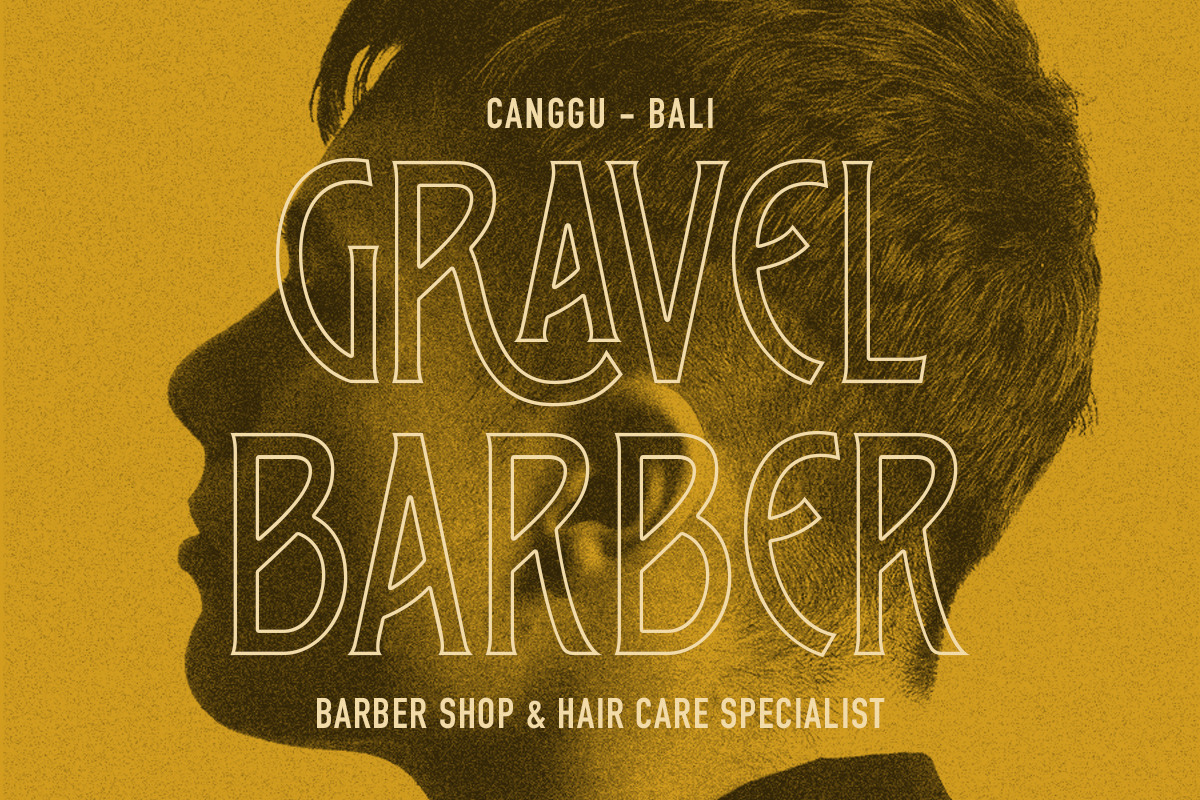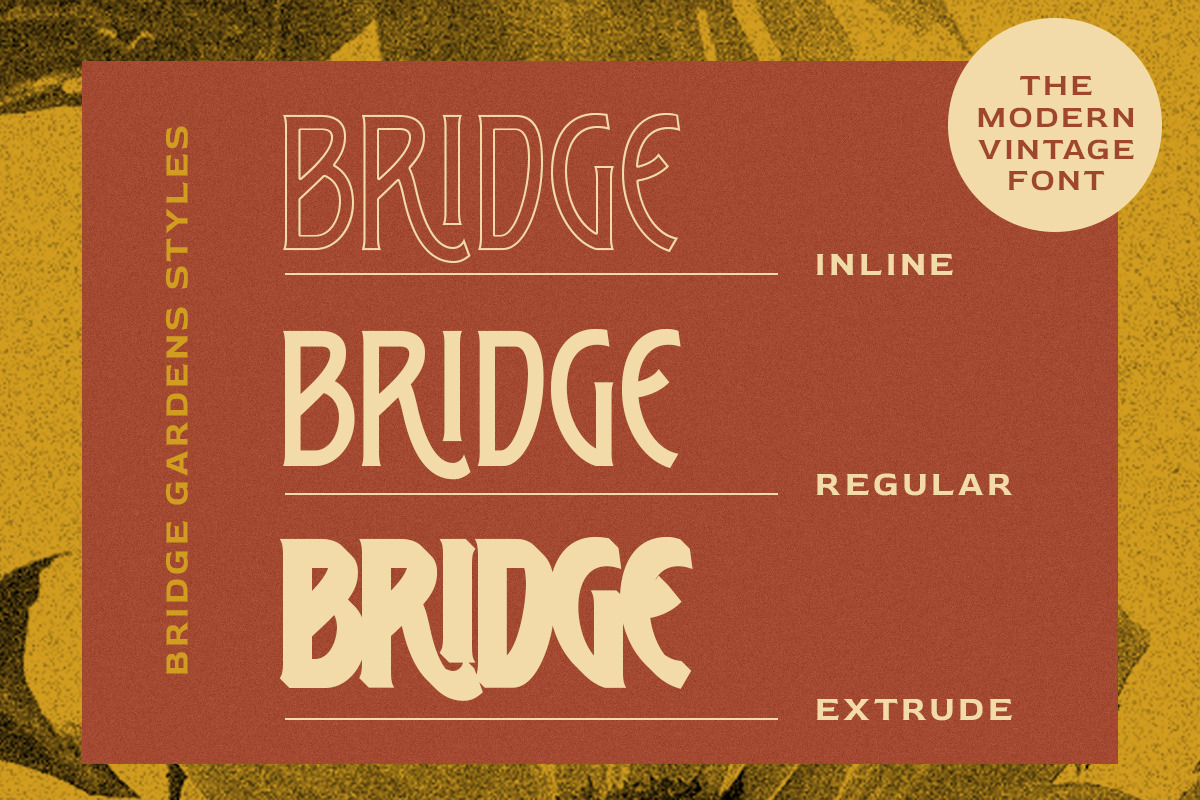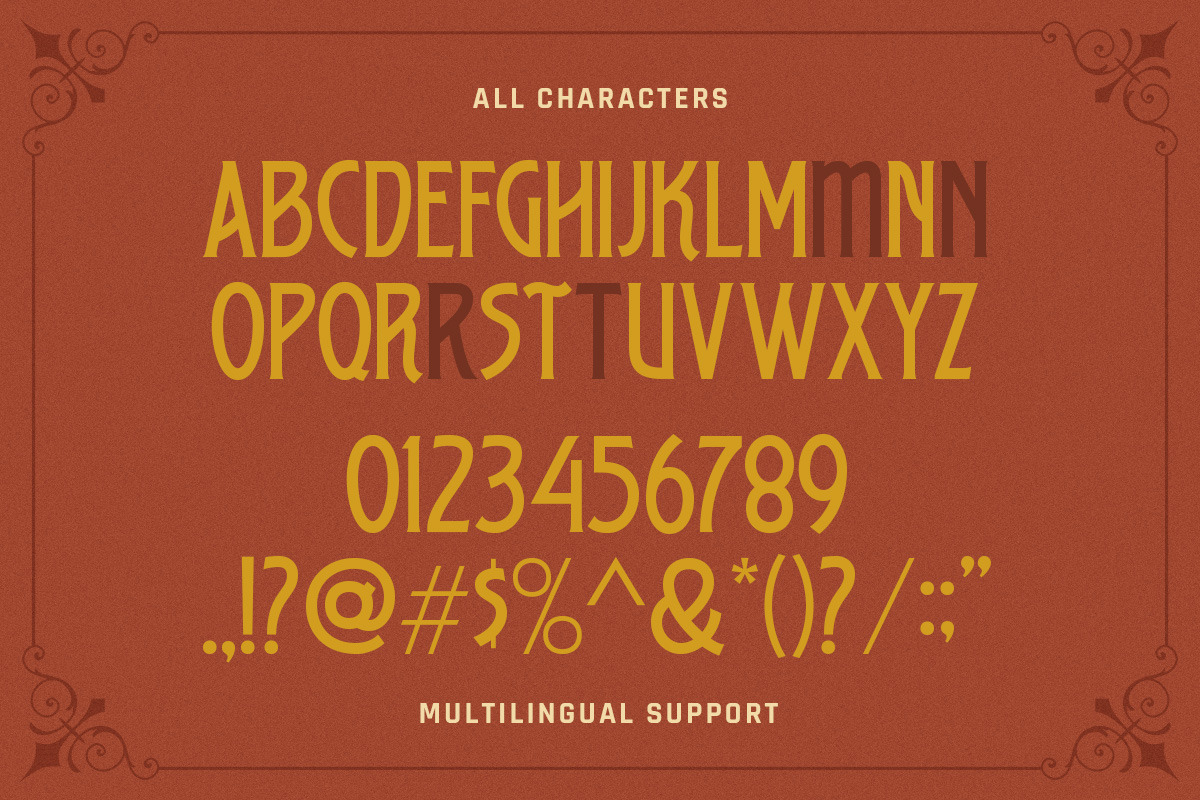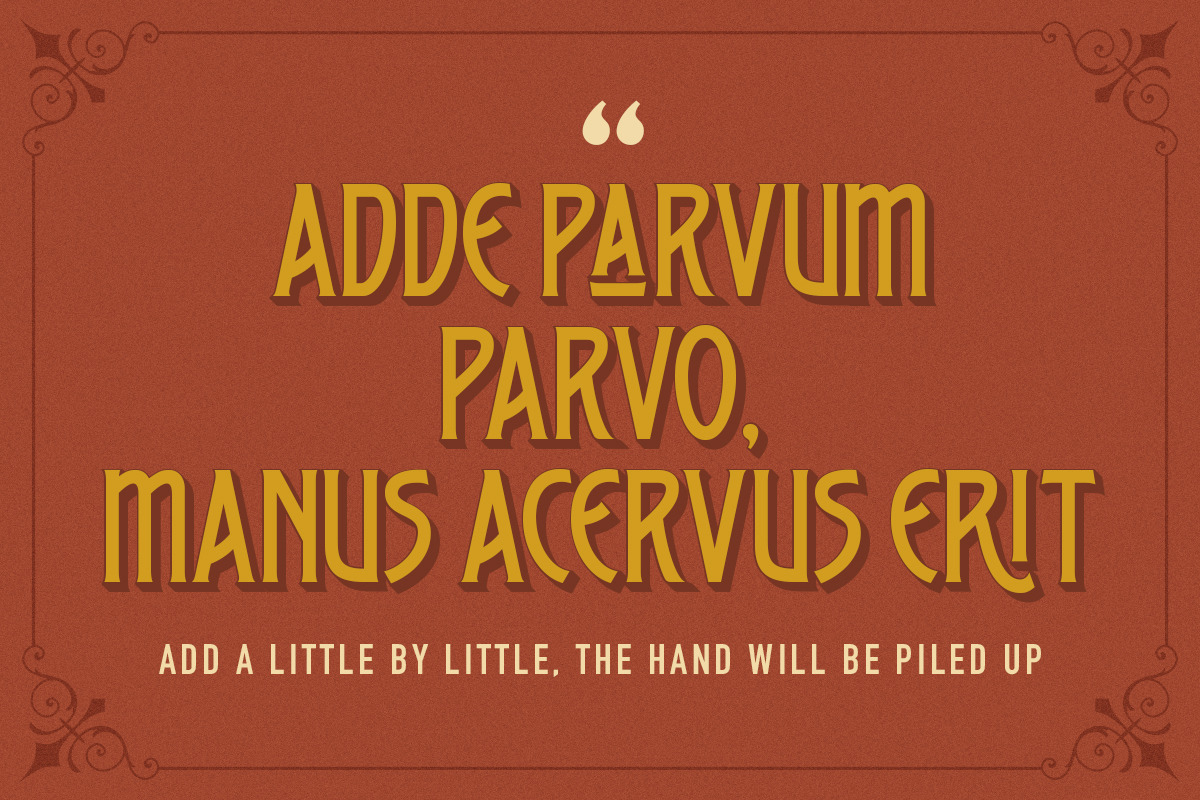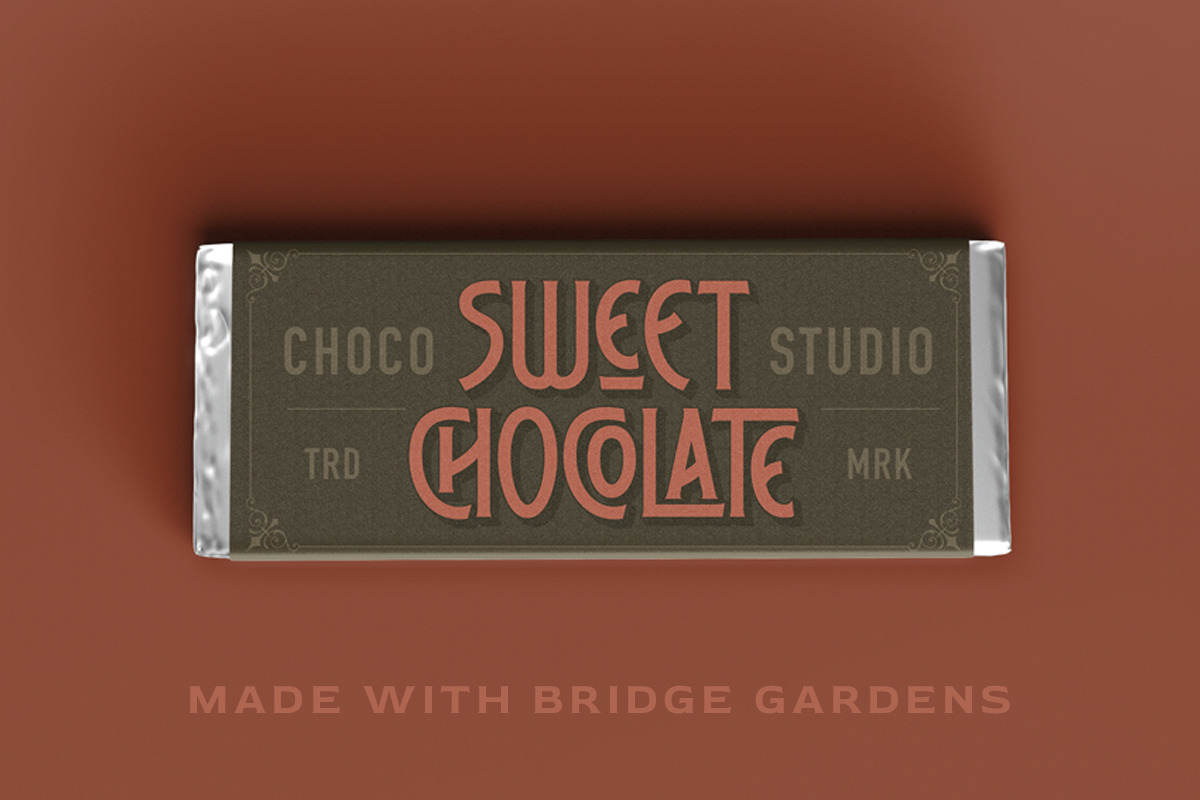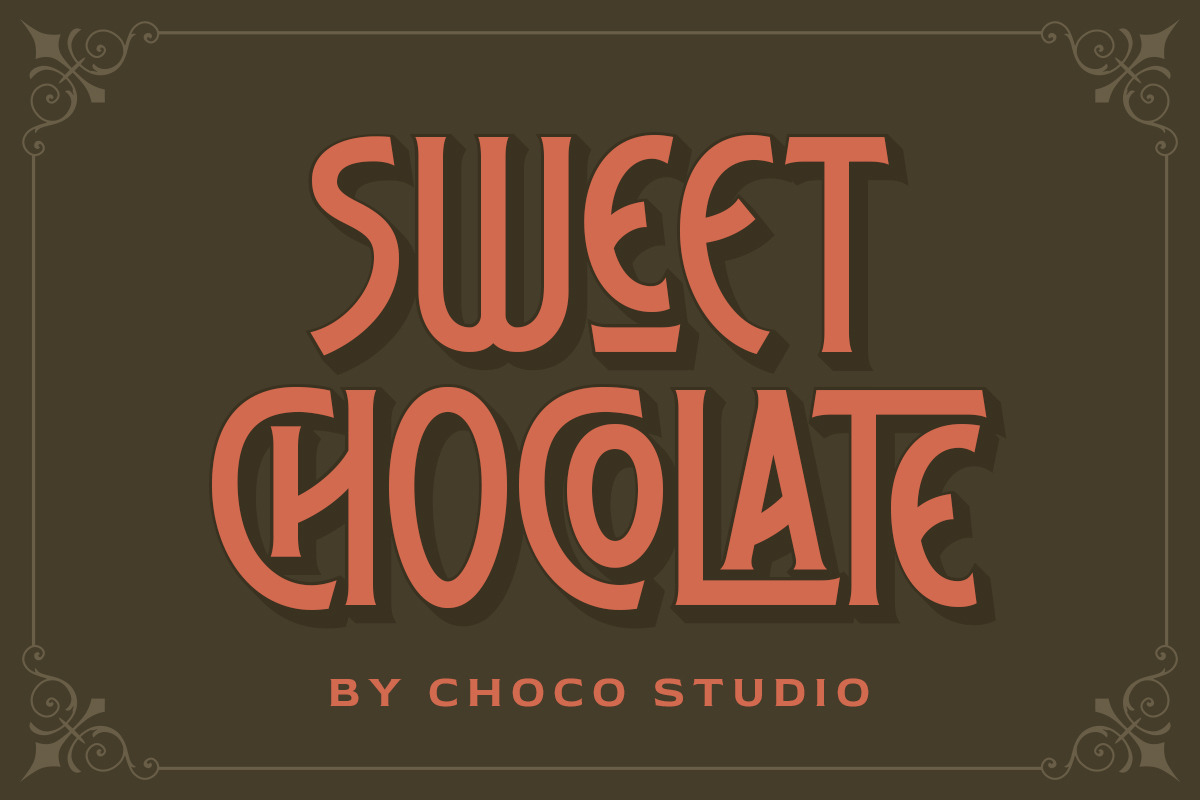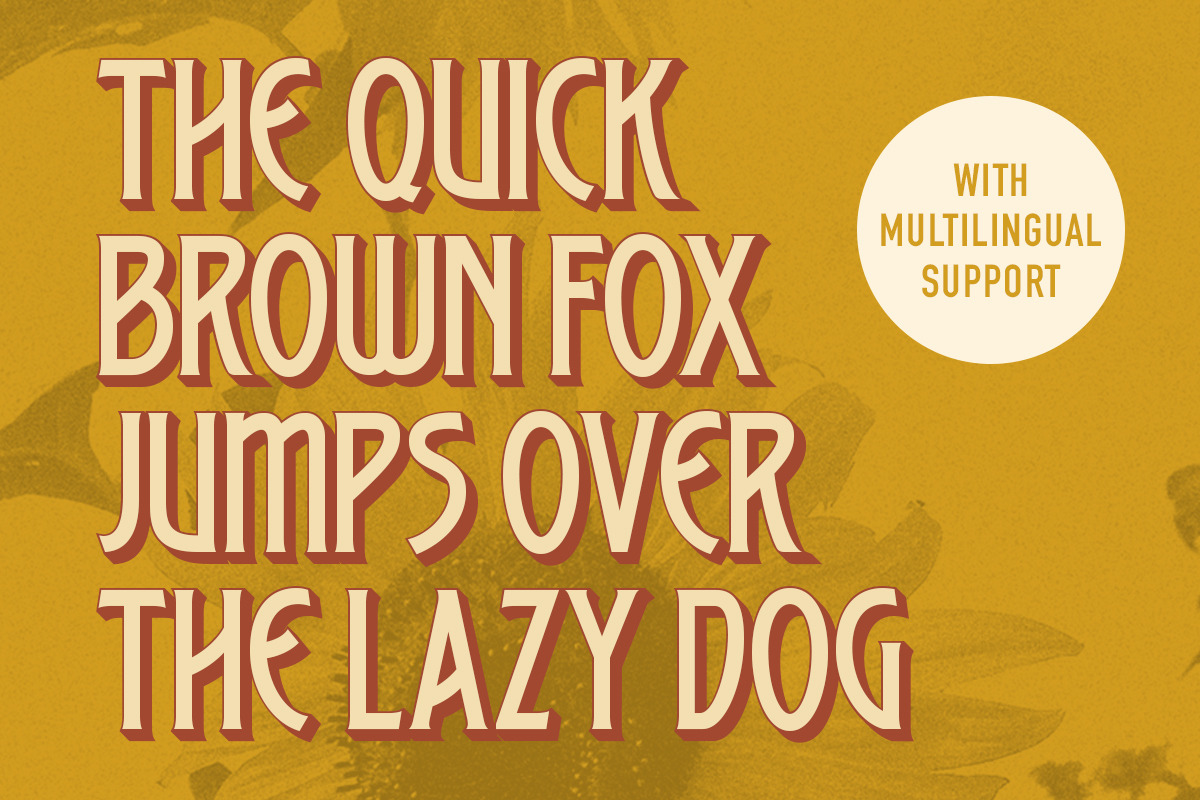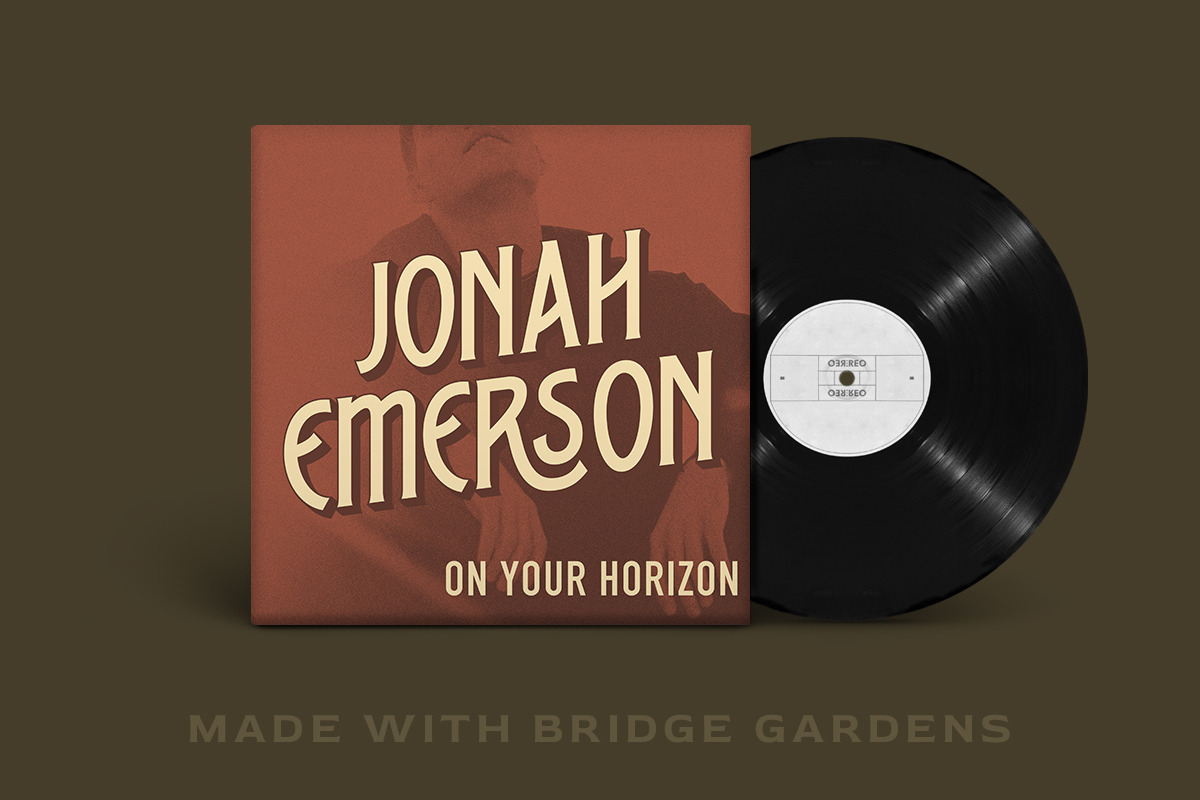
Bridge Gardens - Modern Vintage
Bridge Garden is a display font with vintage and clean looks. It comes with 3 styles, inline, regular, and extrude. This font perfectly made to be applied especially in logo, and the other various formal forms such as invitations, labels, logos, magazines, books, greeting / wedding cards, packaging, fashion, make up, stationery, novels, labels or any type of advertising purpose. Features :
- Numbers and punctuation -Alternates & Ligatures